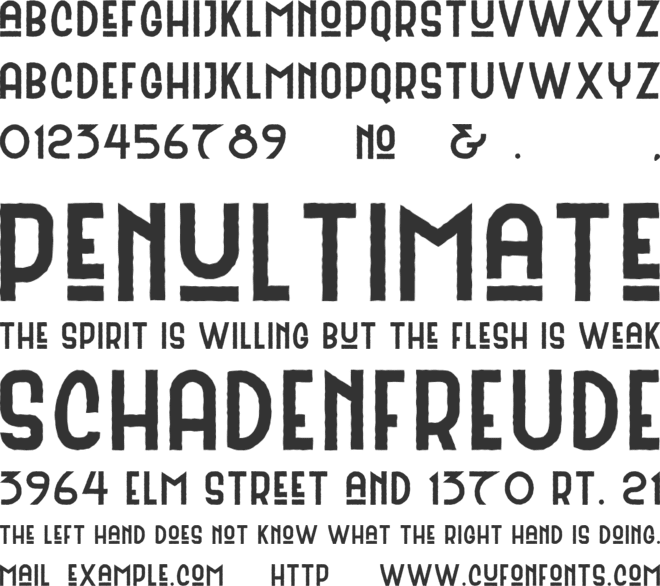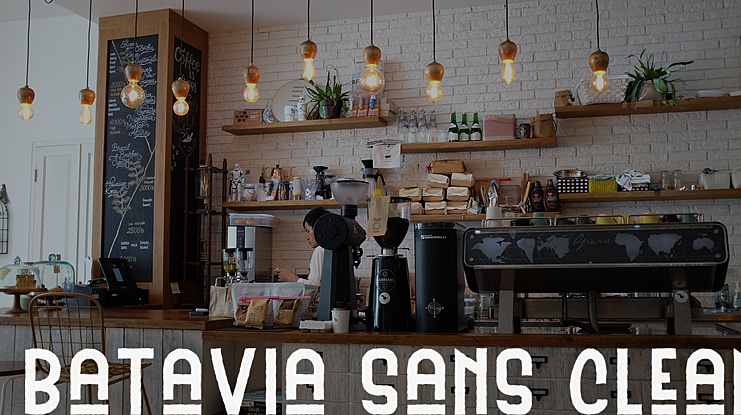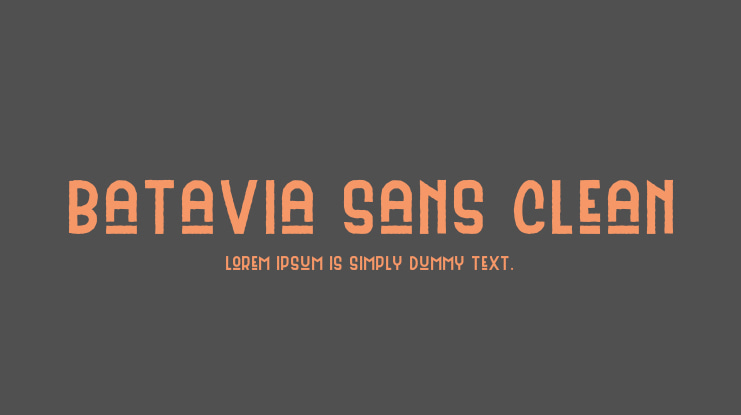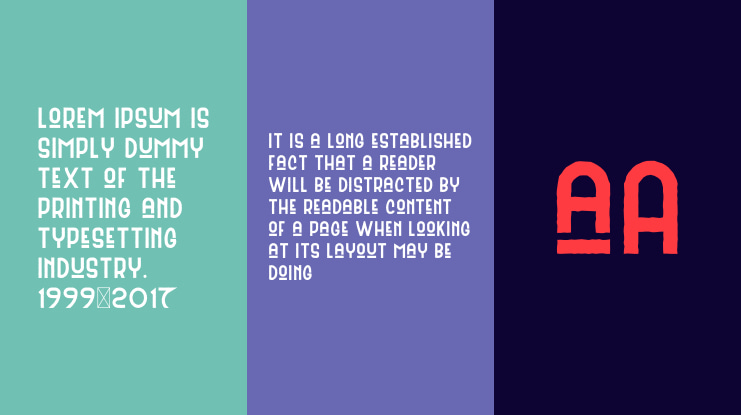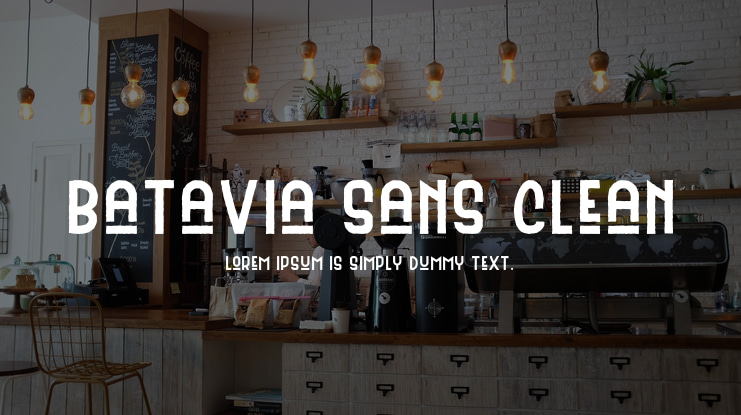
Batavia Sans Clean Font
Batavia Sans & Script crafted by hand inspired by the atmosphere of Batavia, a city in the Dutch East Indies which is now renamed Jakarta. Including Script and Sans which perfectly pairing each other to create vintage mood. It can be used in different purposes: lettering and logotype, labels, t-shirts, product packaging, invitations, advertising and any key text in design.